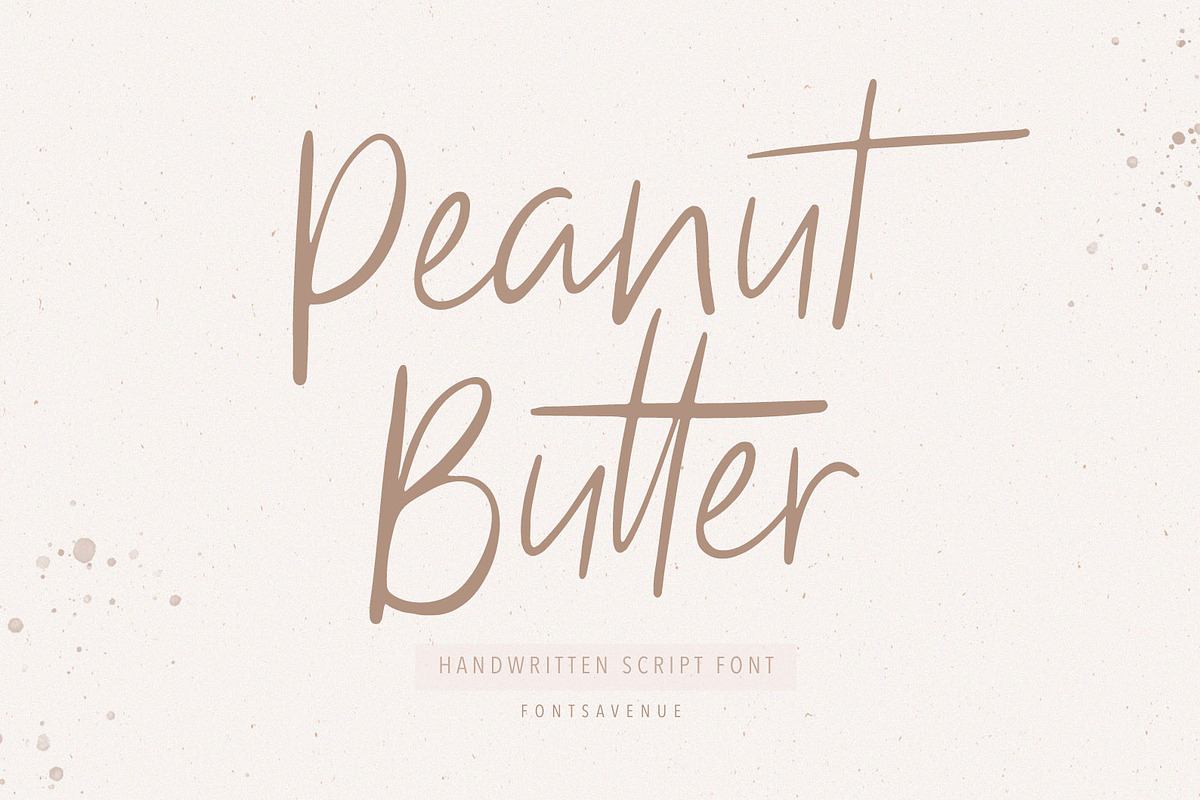
Peanut Butter | Modern Script Font Free Download
Peanut Butter | Modern Script Font Free Download is a stylish and playful handwritten script typeface that brings warmth and personality to your designs. Featuring smooth, flowing curves and a casual, organic feel, this font is perfect for creating logos, invitations, greeting cards, branding, and social media content. Its unique design makes it ideal for creative projects, personal branding, or any design that needs a fun, modern touch. Whether you're working on a personal project, an event invitation, or a creative brand, Peanut Butter | Modern Script Font Free Download allows you to experiment with its playful and elegant style in personal projects before purchasing a commercial license. Add charm and creativity to your designs with this beautifully crafted modern script font.